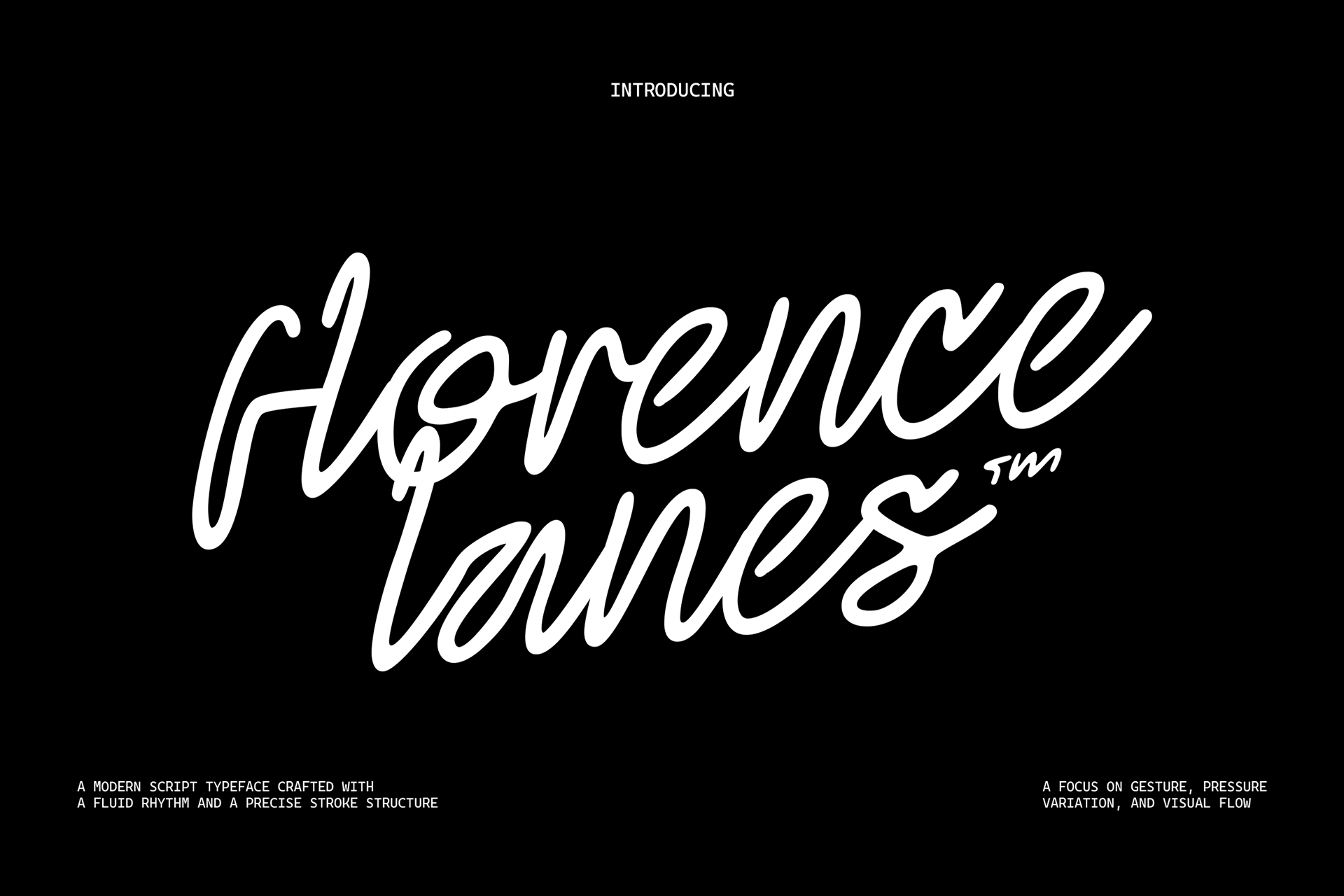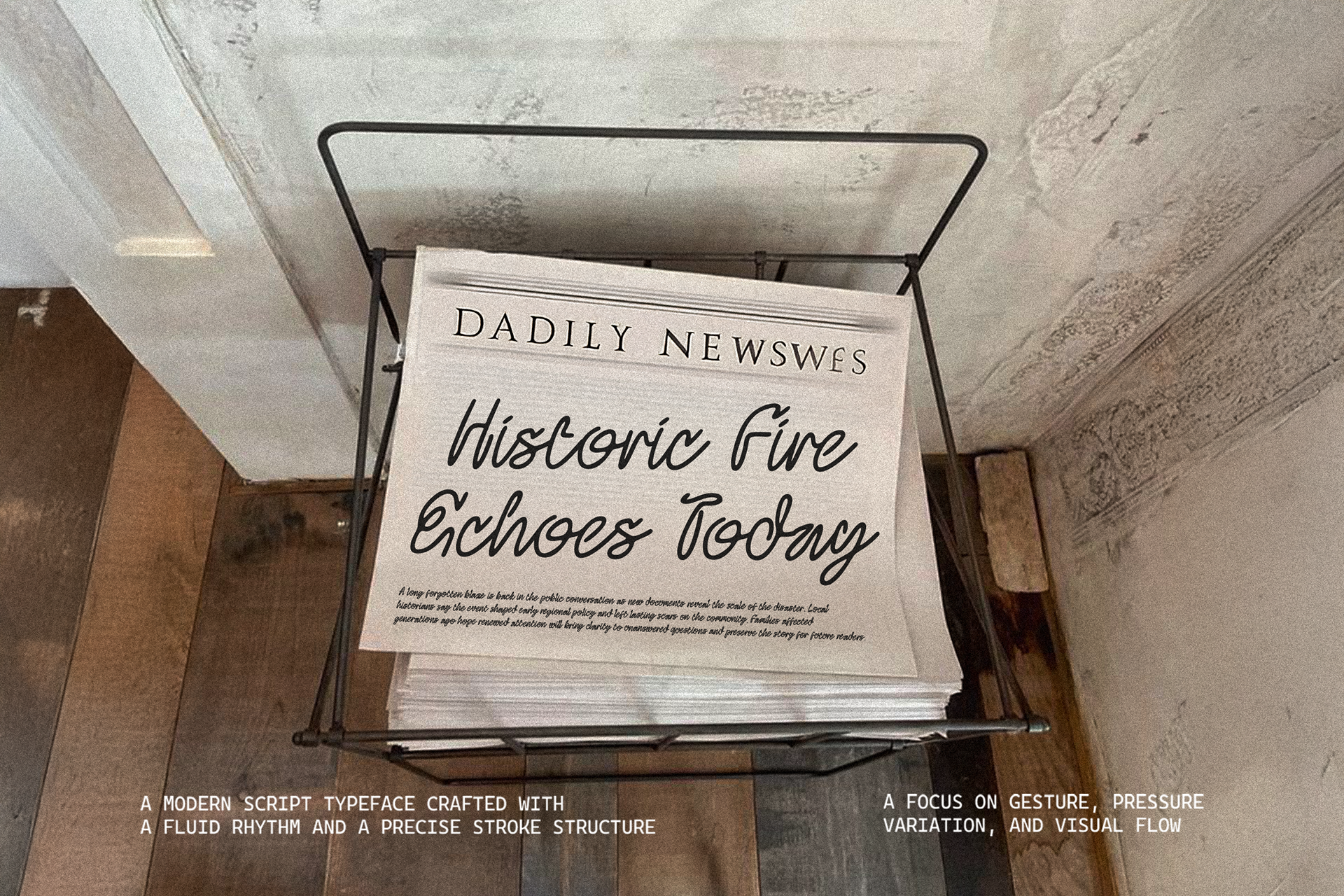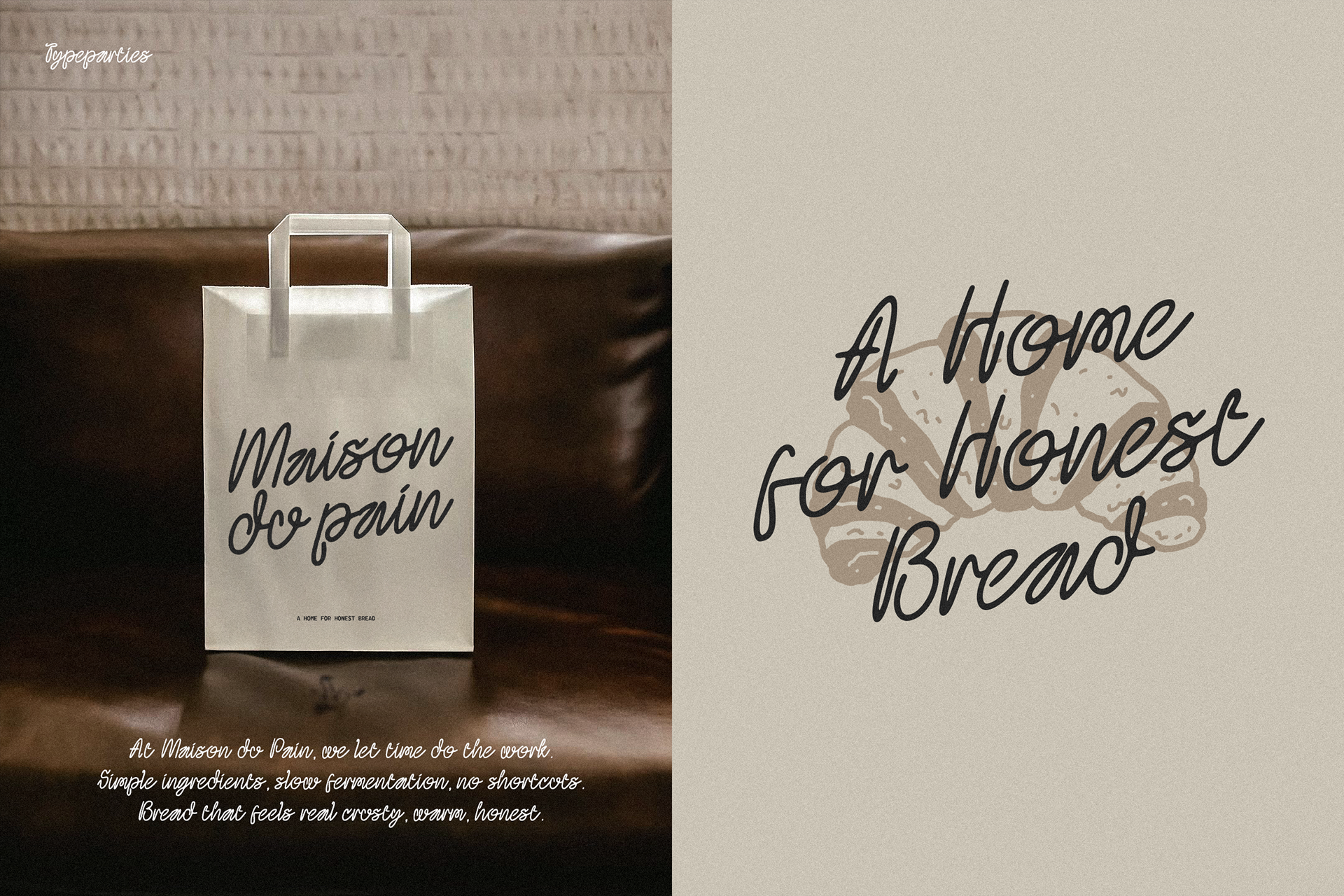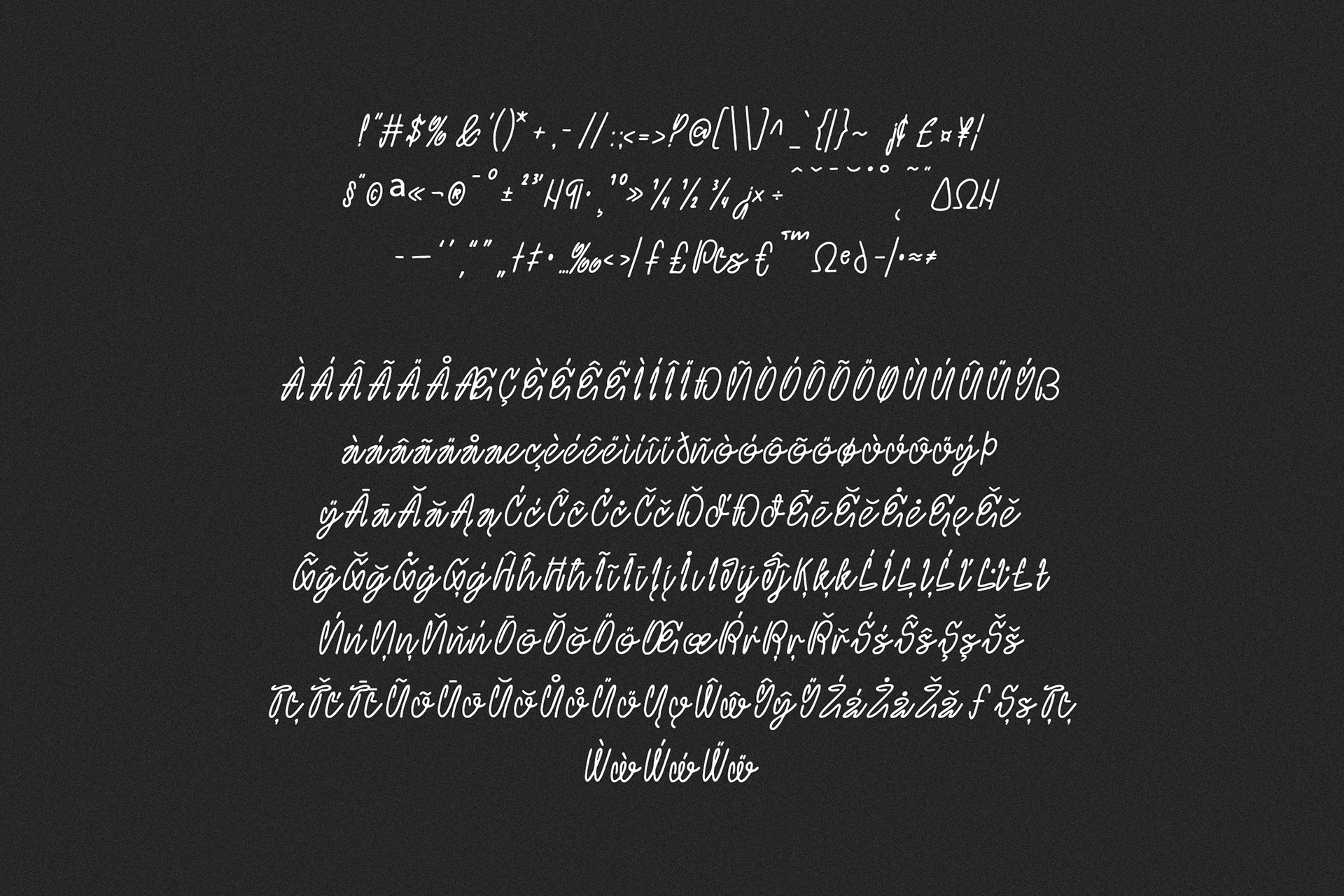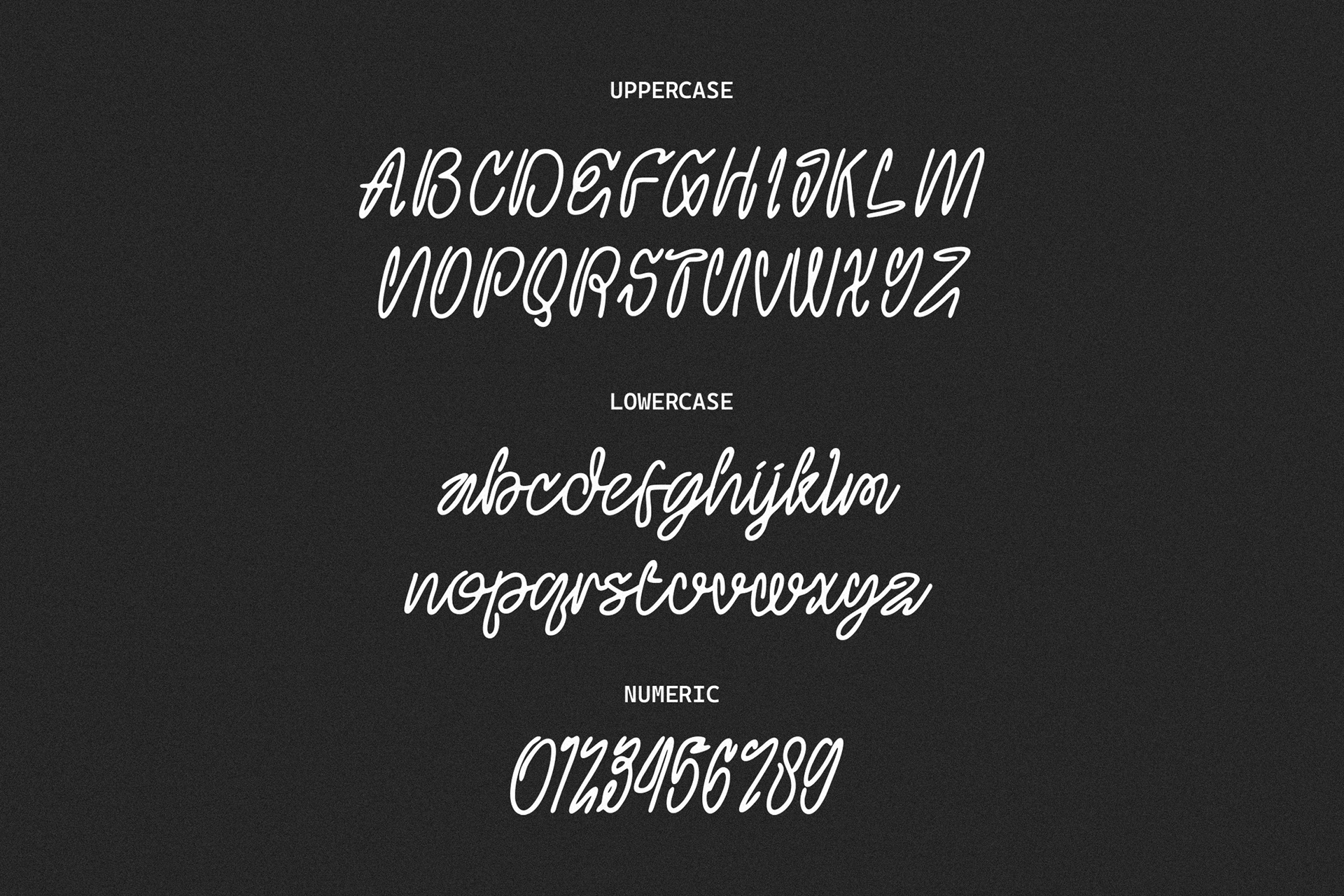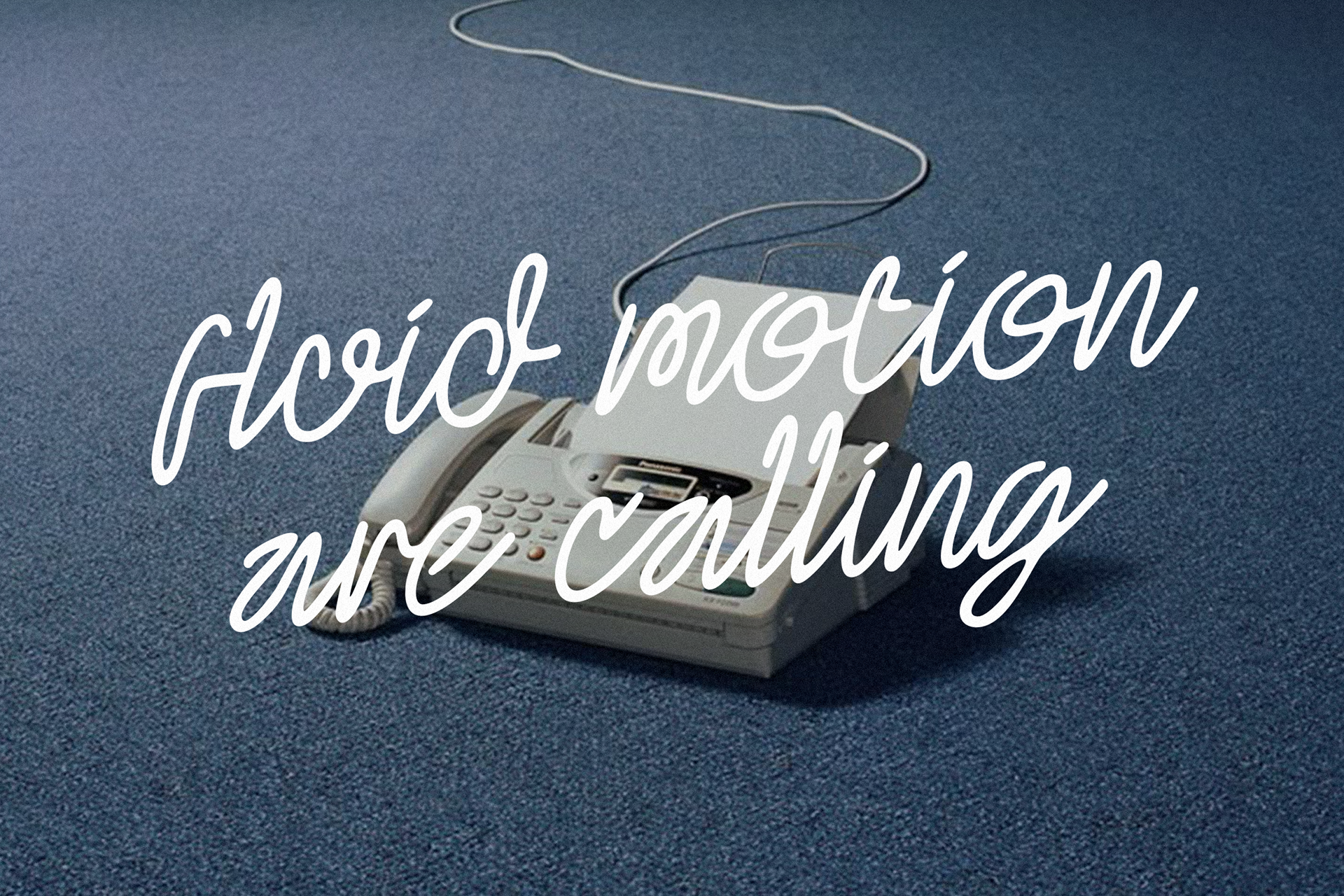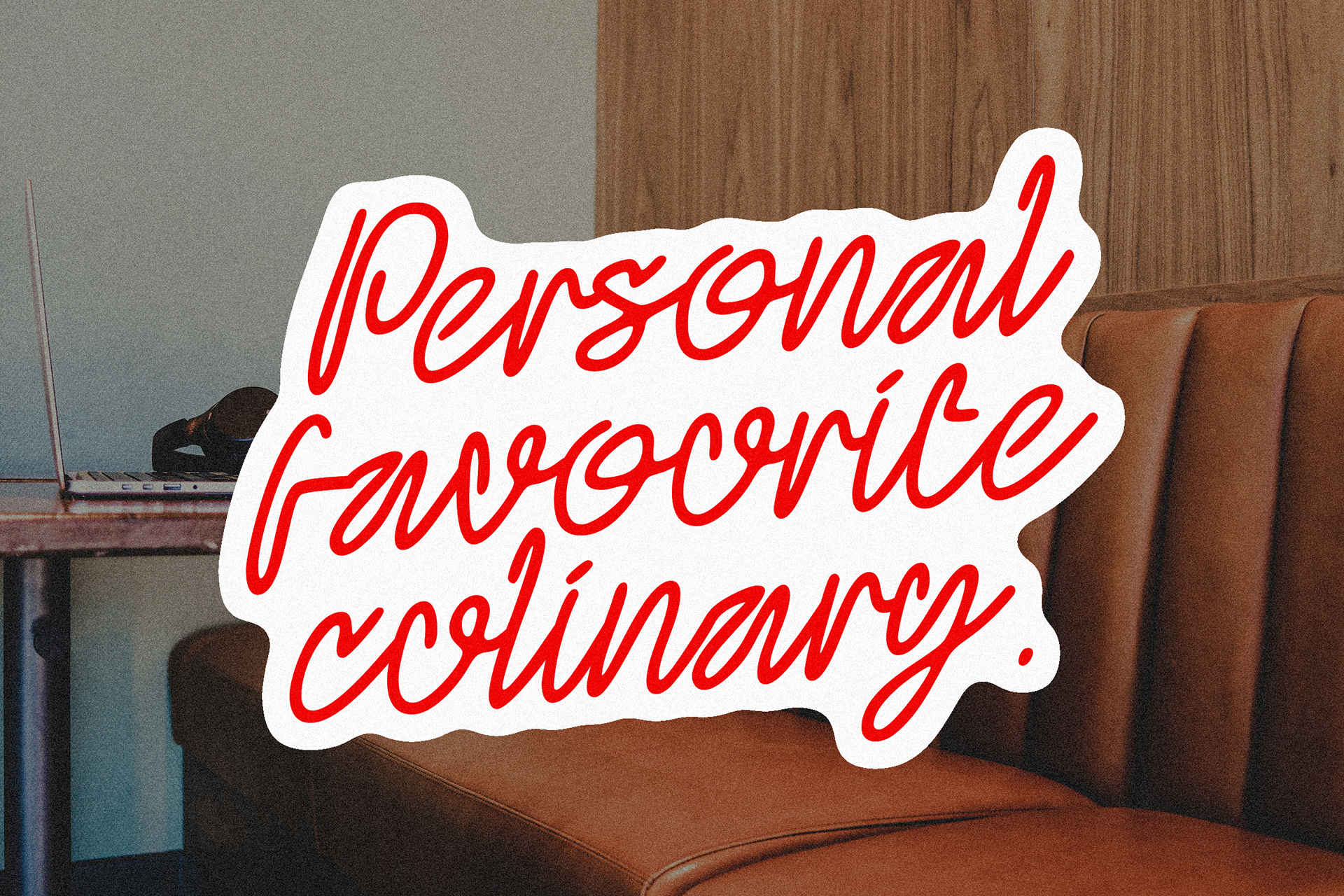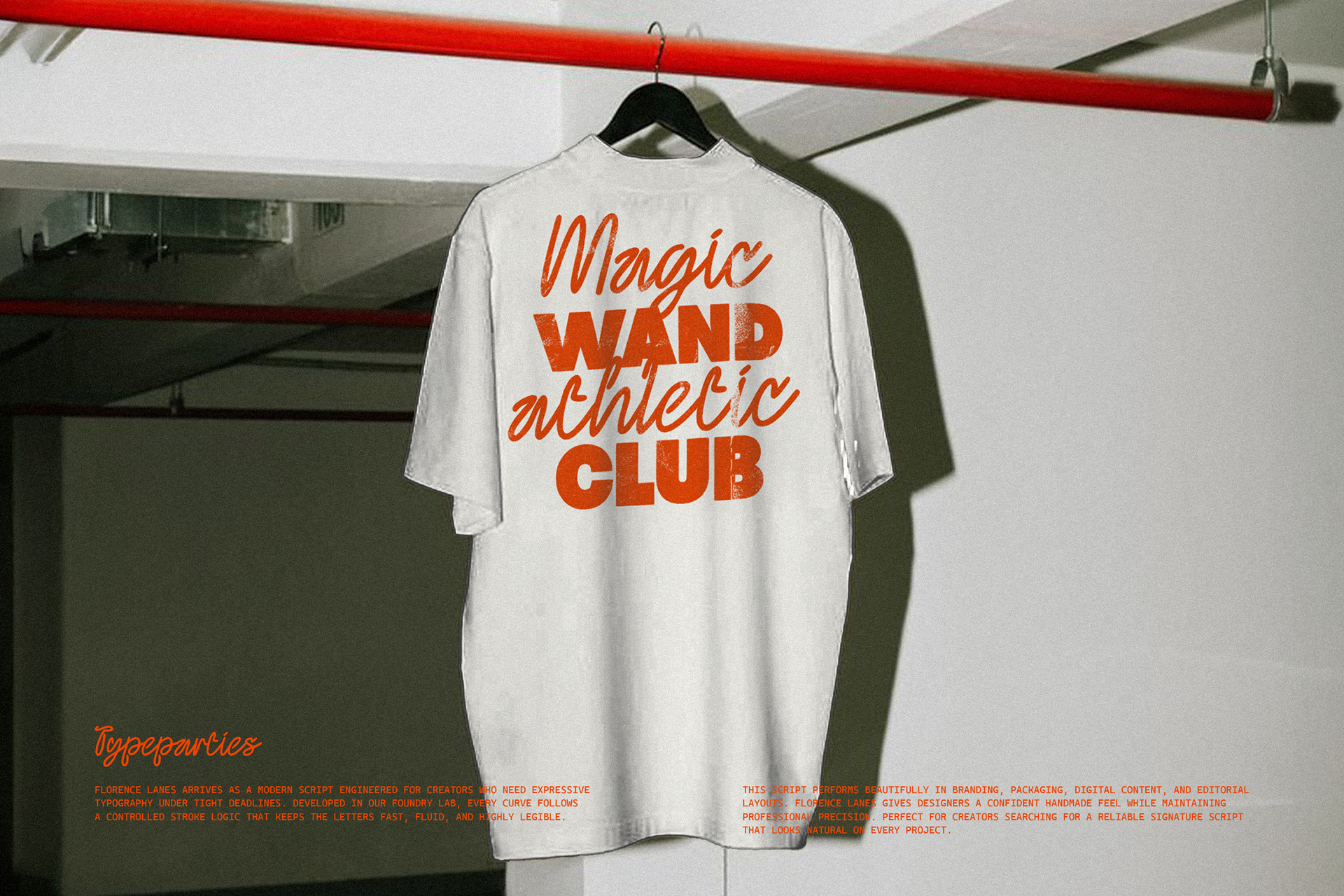
Florence Lanes is a modern handwritten script created for designers who want a signature style that feels personal yet polished. The smooth strokes, soft curves, and natural flow give this font an effortless look that works perfectly for branding, logos, social media visuals, packaging, posters, and lifestyle products. It brings a warm handwritten character while staying clean enough for professional design work.
This font is designed to look like real ink on paper with consistent rhythm and balanced contrast. It works beautifully for creators who want an authentic voice in their visuals. Whether you are building a boutique brand, crafting aesthetic Instagram posts, or designing merchandise for a modern label, Florence Lanes fits right in with today’s creative trends.